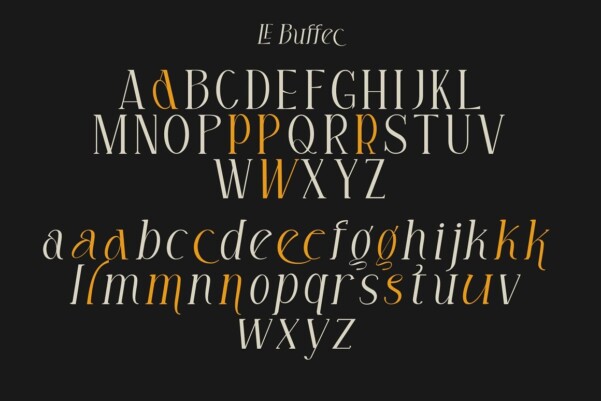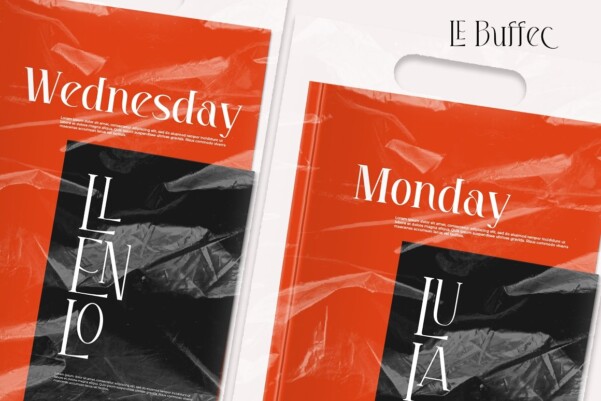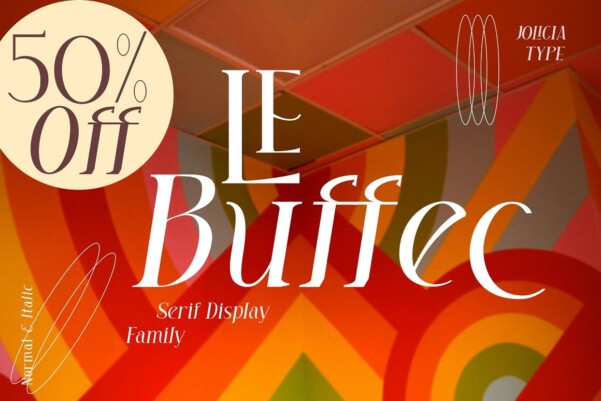
LE Buffec Font
LE Buffec Font is a modern display serif. LE Buffec is a variable typeface for weight By using the variable sliders in your design software you have a range of weight options. Play around with individual letters to give your type a unique look. Included in this family are alternate characters to add even more styling options.